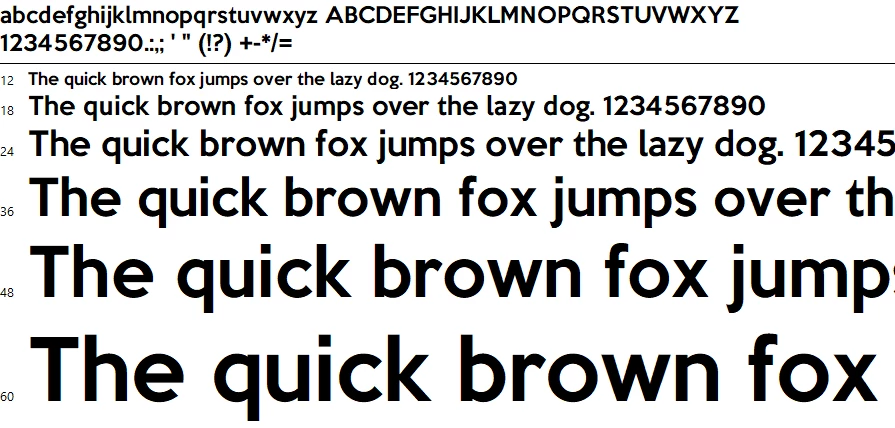
Designed by K-Type Keep Calm is a Sans-serif typeface font. Keep Calm is a family of fonts developed from the now-famous World War 2 poster that was designed in 1939 but never issued, then rediscovered in 2000. As well as the original Keep Calm font, the Medium weight of the poster, three new weights are available – Book (regular), Heavy, and Light – and each comes with a complimentary Italic.
Keep Calm is basically the text font but expanded to more in use. You can use the font in any content with the beautiful geometric style.